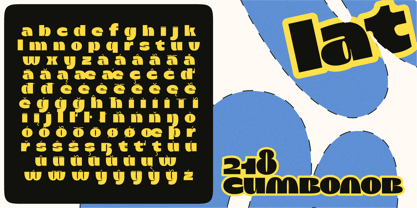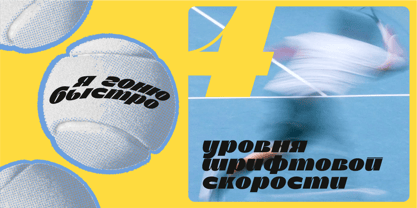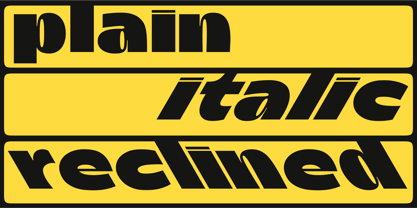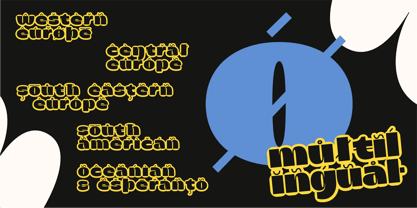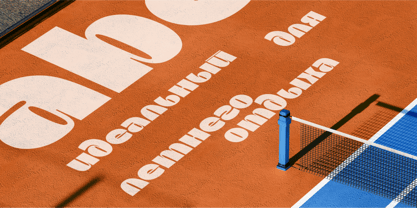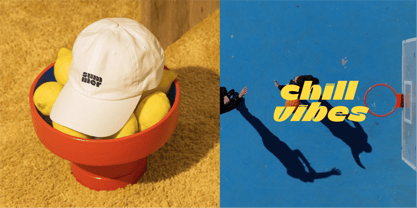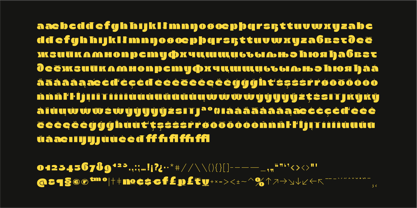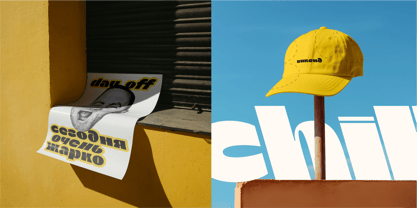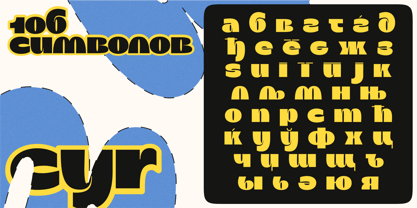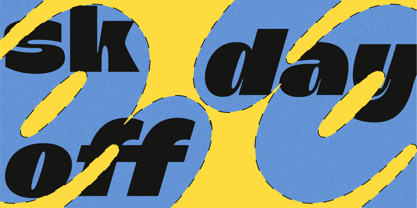
SK Day Off
The SK Day Off Font Family was designed by Ekaterina Vakhrusheva and published by Shriftovik. SK Day Off contains 3 styles and family package options.
SK DayOff is a dynamic and playful typeface with a vibrant personality. It combines smooth curves and unusual proportions, creating a sense of lightness and movement. The soft contours and rhythmic lines give the typeface a relaxed and energetic appearance, reflecting an atmosphere of freedom and carefree joy.
The typeface is available in several styles, ranging from Reclined to Italic, allowing you to customize the mood and flexibility of your design. SK Day Off supports extended Cyrillic and Latin scripts, offering a wide variety of design possibilities, making it an ideal choice for bold and unique projects.